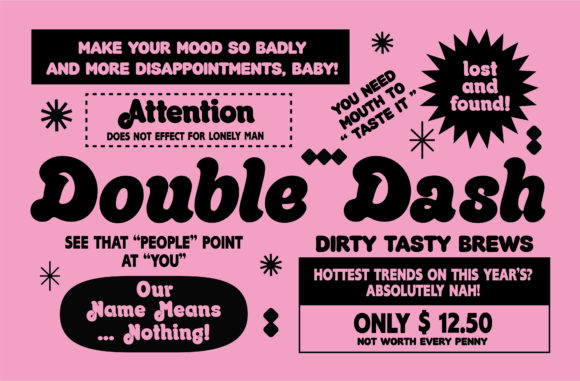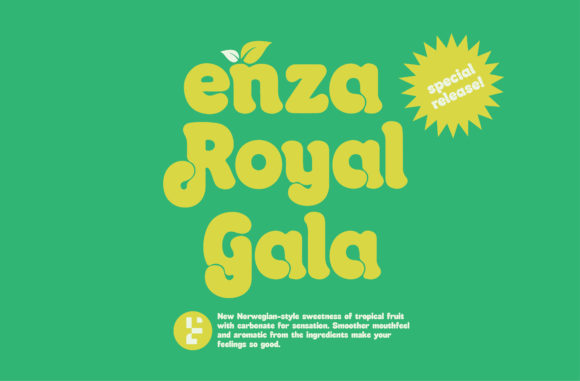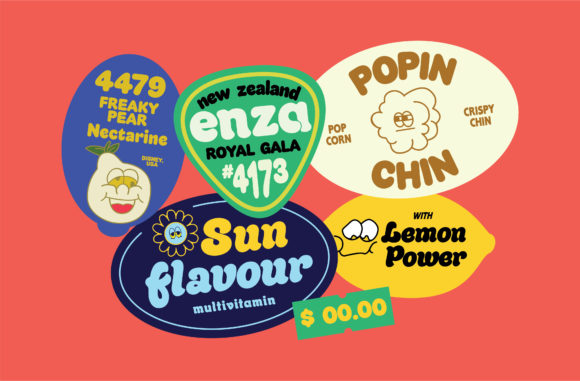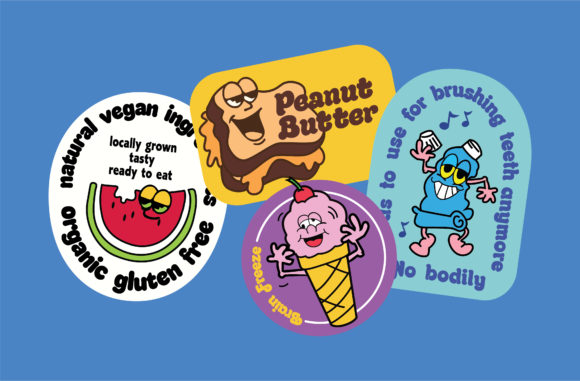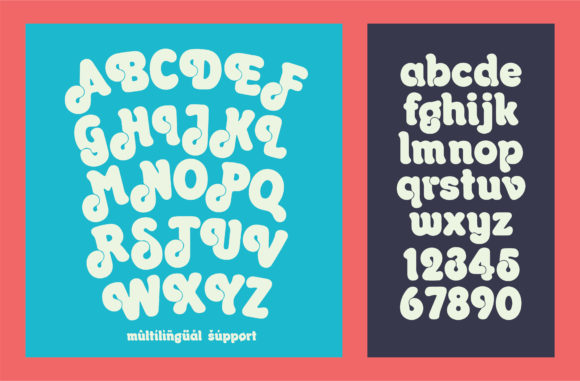
Gurenge Font: Unleash Your Creativity with Cheerful and Lively Display Fonts
Are you a designer or crafter looking for a font that can add a touch of playfulness and excitement to your projects? Look no further than the Gurenge font! This delightful display font is designed to bring a smile to your face, with its cheerful and lively typefaces that will make your design possibilities endless.
What is Gurenge Font?
Gurenge font is a display font that is perfect for designers and crafters who want to add a personal touch to their projects. The font is characterized by its bold, playful, and lively style, making it ideal for use in a variety of design projects, from posters and flyers to social media graphics and crafts.
Features of Gurenge Font
The Gurenge display fonts come with multiple typefaces, which means you can experiment with different styles to find the one that best suits your design needs. Some of the key features of Gurenge font include:
- Multiple typefaces: With Gurenge font, you get access to a range of typefaces that can be used to create unique and eye-catching designs.
- Cheerful and lively: The font is designed to be playful and fun, making it perfect for designers and crafters who want to add a personal touch to their projects.
- Easy to read: Despite its playful style, Gurenge font is easy to read, making it suitable for use in a variety of design projects.
- Versatile: Gurenge font can be used in a range of design projects, from posters and flyers to social media graphics and crafts.
Benefits of Using Gurenge Font
So, why should you choose Gurenge font for your design projects? Here are just a few benefits of using this delightful display font:
- Adds a personal touch: Gurenge font is perfect for designers and crafters who want to add a personal touch to their projects.
- Stand out from the crowd: With its playful and lively style, Gurenge font can help your designs stand out from the crowd.
- Easy to use: Gurenge font is easy to use, even for designers and crafters who are new to font design.
- Endless design possibilities: With multiple typefaces and a range of design possibilities, Gurenge font can help you unleash your creativity and bring your design ideas to life.
How to Use Gurenge Font
Using Gurenge font is easy! Here are a few tips to get you started:
- Experiment with different typefaces: Try out different typefaces to find the one that best suits your design needs.
- Pair with other fonts: Gurenge font can be paired with other fonts to create unique and eye-catching designs.
- Use in a variety of design projects: Gurenge font can be used in a range of design projects, from posters and flyers to social media graphics and crafts.
- Have fun: Most importantly, have fun with Gurenge font! Experiment with different designs and styles to find the one that works best for you.
In conclusion, Gurenge font is a delightful display font that is perfect for designers and crafters who want to add a touch of playfulness and excitement to their projects. With its cheerful and lively typefaces, multiple font styles, and endless design possibilities, Gurenge font is sure to bring a smile to your face and unleash your creativity. So why not give Gurenge font a try today and see the difference it can make in your design projects?
The Gurenge display fonts are cheerful and lively and have multiple typefaces that will make your design possibilities endless. You will have so much fun with these fonts!